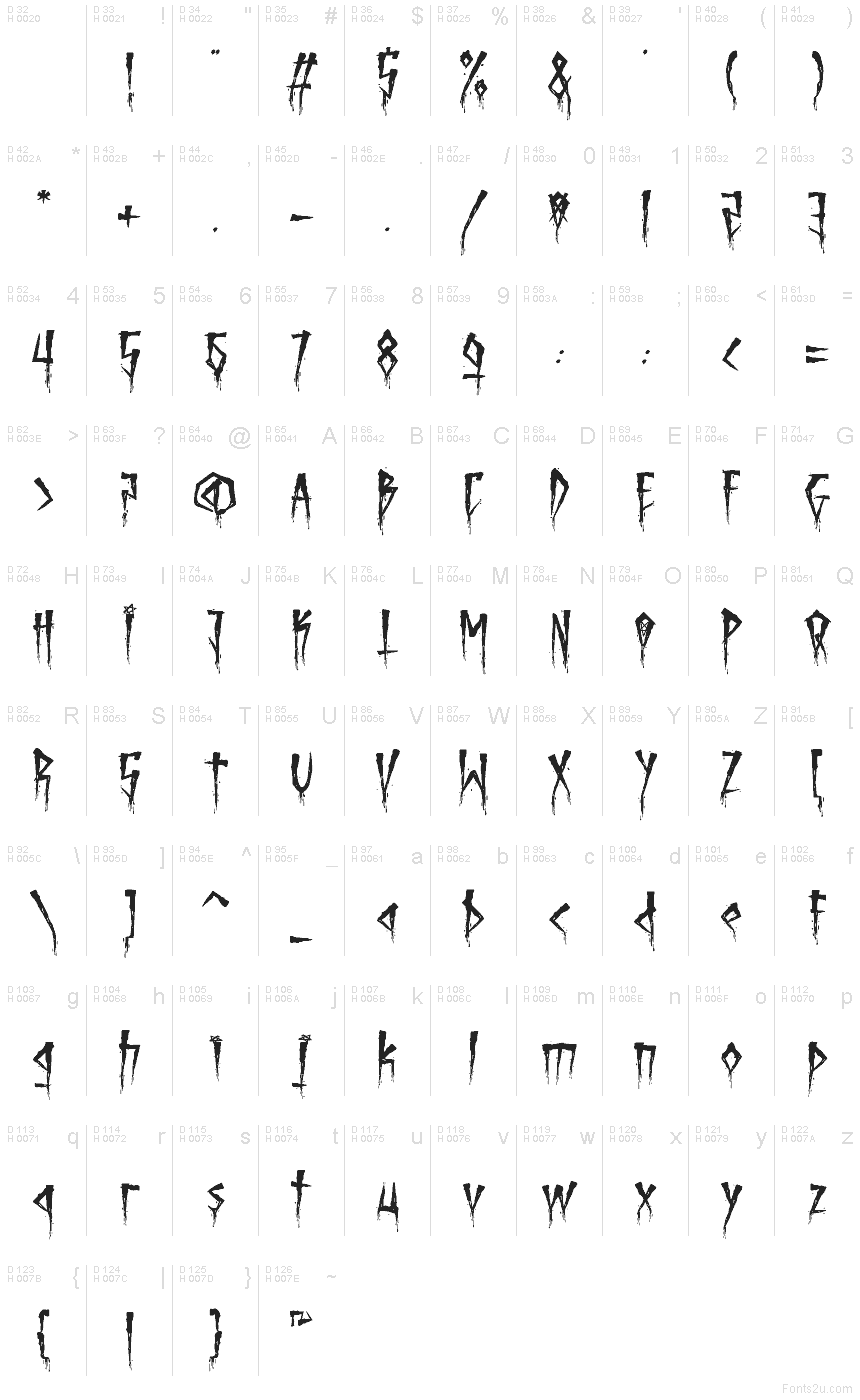
Brutal Brushstrokes Two
Brutal Brushstrokes Two font by PutraCetol Studio is a free Halloween brush display font in the Brutal Brushstrokes family. Each letter looks slashed into place—jagged spikes, splintery stems, and inky splatters create a tense, uneven rhythm that screams horror at headline sizes. The spacing stays tight, so words bunch together like a creeping shadow, delivering instant menace without extra effects.
Using Brutal Brushstrokes Two, you can punch up haunted house posters, spooky party invites, horror game titles, YouTube thumbnails, scare-maze signage, and seasonal merch. This free font shines when set large with slightly tighter tracking; pair it with a clean, neutral sans for body copy to keep the chaos controlled.